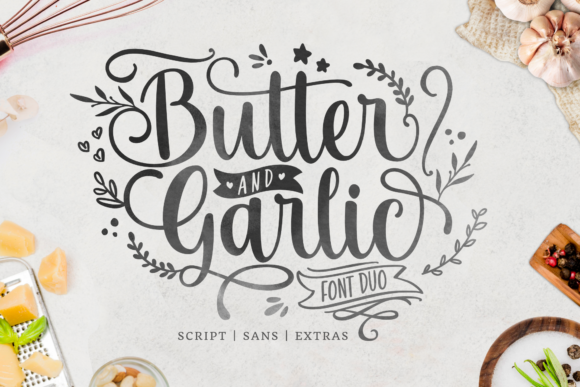
Butter and Garlic: Adding a Handwritten Touch to Your Creative Projects
In the world of design, where clean lines and digital precision often dominate, there’s a growing desire for something more personal, more human. We crave the imperfect charm of a handwritten note, the warmth that digital text can sometimes lack. This is where a typeface like Butter and Garlic steps in, not just as a font, but as a tool for adding genuine emotion and character to your work. It’s a beautiful, romantic script that captures the fluidity and intimacy of hand-lettering, making it a powerful asset for anyone looking to create a more authentic connection with their audience.
So, what exactly is Butter and Garlic? At its core, it is a handwritten font, but that simple label doesn't do it justice. Its visual style is defined by flowing, connected letters that mimic the natural movement of a calligrapher's pen. The letterforms have a gentle slant and varied stroke weights, which avoids the monotonous, machine-like feel of standard fonts. This gives it a personality that is at once elegant, approachable, and deeply personal. It feels less like a typeface and more like a signature, making it an ideal choice for projects where you want to convey a sense of care, creativity, and individuality. As a premium font offered as a freebie, it provides exceptional value for creators at all levels.
Where Your Designs Will Shine
The true strength of a creative font like Butter and Garlic is its versatility across a surprising range of applications. While its romantic nature makes it a natural fit for wedding invitations and thank you cards, its utility extends far beyond the realm of stationery. Think about logo design for a boutique brand, a local bakery, or a personal blog. The font immediately establishes a friendly, artisanal, and trustworthy brand identity. It tells customers that there’s a real person behind the business, someone who values craft and quality.
This handwritten script font is also a fantastic choice for editorial design and packaging design. Imagine it used for pull quotes in a magazine layout or as the primary text on a gourmet food label. It adds a layer of sophistication and personality that a standard sans serif font or serif font simply cannot provide. In the digital space, it’s perfect for creating engaging social media graphics, compelling hero text on a website, or personalized email headers. Its warm, human touch can increase audience engagement by making digital content feel less corporate and more conversational.
For entrepreneurs and small business owners, incorporating Butter and Garlic into your marketing materials can be a game-changer. It works beautifully on business cards, product tags, and promotional flyers, helping your brand stand out in a crowded marketplace. For bloggers and content creators, it can be used to create visually striking title cards for videos, unique chapter headings in an e-book, or memorable graphics for your Pinterest and Instagram feeds. Even for personal projects, like scrapbooking or creating custom quotes for wall art, this font provides a polished, professional look with minimal effort.
Integrating Butter and Garlic into Your Workflow
Choosing the right font is a critical design decision, and it’s important to evaluate whether a typeface is the right fit for your specific project. Butter and Garlic excels in contexts where you want to evoke warmth, elegance, and a personal touch. It may not be the best choice for long-form body copy, where readability is paramount, but for headlines, logos, and short, impactful phrases, it’s exceptionally effective. A good practice is to test it in your design software to see how it feels with your other design assets.
One of the most important skills in modern typography is font pairing. A highly expressive display font like Butter and Garlic needs a stable partner to create visual hierarchy and ensure readability. For a balanced and professional look, pair it with a clean, simple sans serif font like Montserrat, Lato, or Open Sans for your body text. The contrast between the fluid, ornate script and the structured, neutral sans serif creates a dynamic and sophisticated layout. Alternatively, for a more classic or literary feel, you could pair it with a traditional serif font like Garamond or Times New Roman.
Before you begin, take a moment to review the font's full character set. Because Butter and Garlic is PUA encoded, you have easy access to a wide range of glyphs, including alternate letters, stylistic swashes, and ligatures. These extra characters are what allow you to customize the look and feel of your text, making each piece of typography unique. Experiment with different letter combinations to create a truly bespoke design. This level of customization is a hallmark of a high-quality commercial font and allows you to elevate your work from good to great.